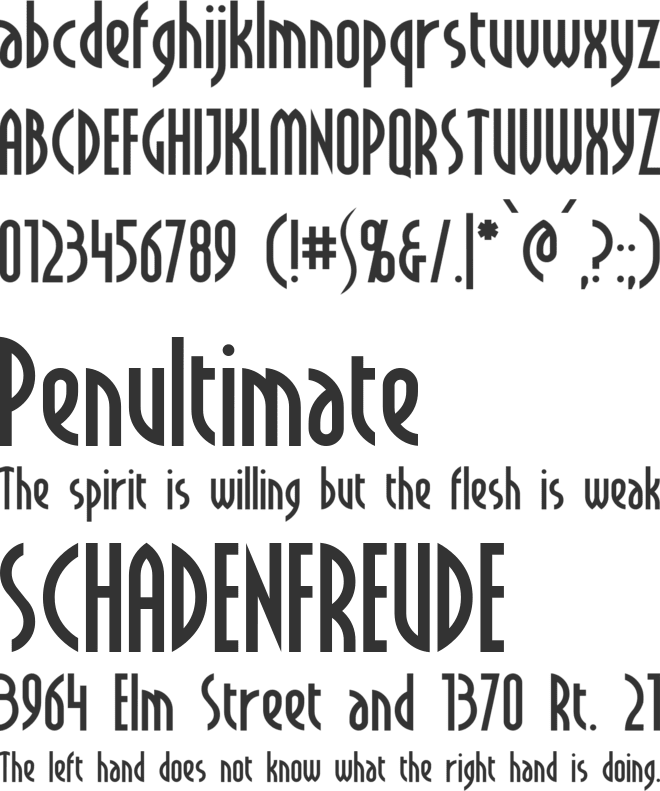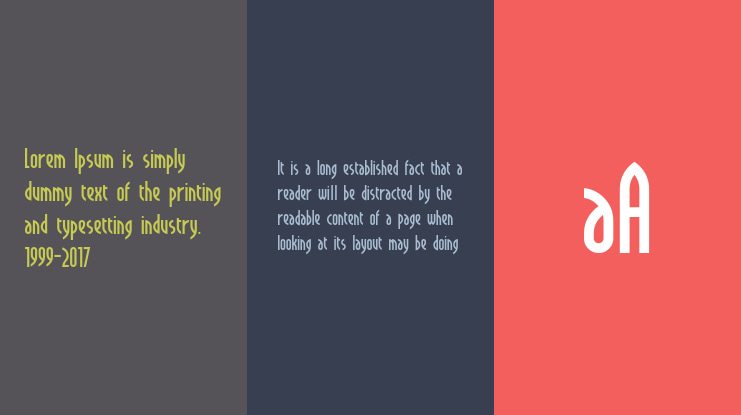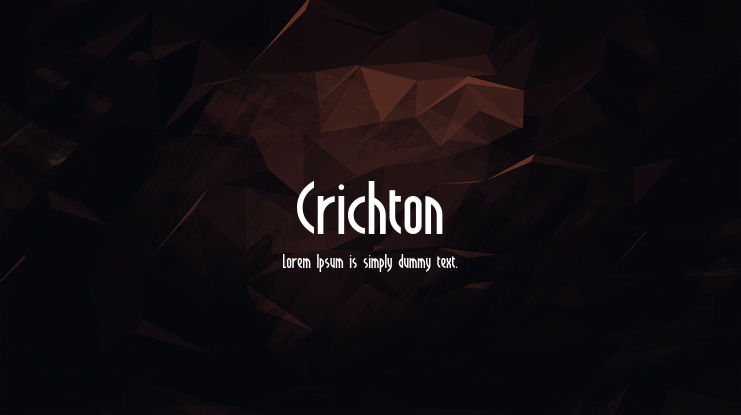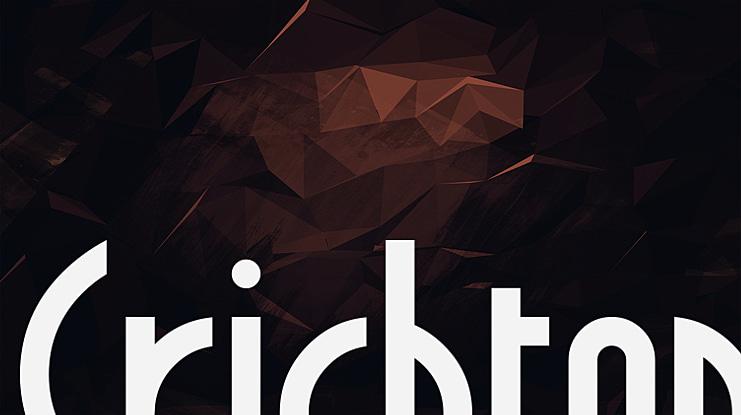
Crichton Font Family
This retro-style font is actually based on the title logo from the "Farscape" television series. Includes full alphabet, extended punctuation, Euro. The "dollar sign" has been replaced with the large "swoosh" from the television logo. Includes bold and italic versions.